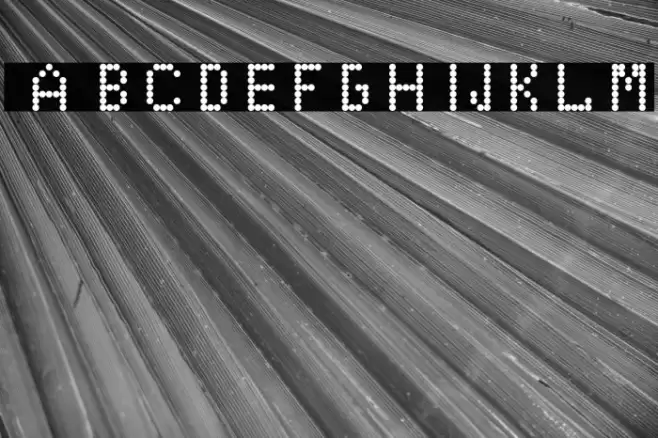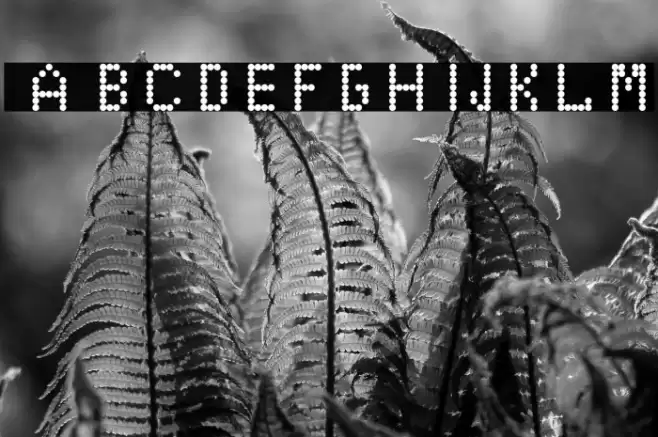
EduOwl-font Regular Font
EduOwl-font Regular Description
This font features a unique dot matrix style, where each character is composed of small, evenly spaced dots. The design is reminiscent of digital displays or LED screens, giving it a modern and technological feel. The uppercase letters are clearly defined, with each character maintaining a consistent height and width, ensuring readability. The overall appearance is clean and structured, making it suitable for projects that require a futuristic or digital aesthetic. The absence of lowercase letters and numbers suggests a focus on simplicity and minimalism.
A modern dot matrix font with a digital, technological aesthetic from Uncategorized fonts.
- Proposed Projects: Ideal for digital displays, tech-themed posters, educational tools, or any project requiring a modern, digital look.